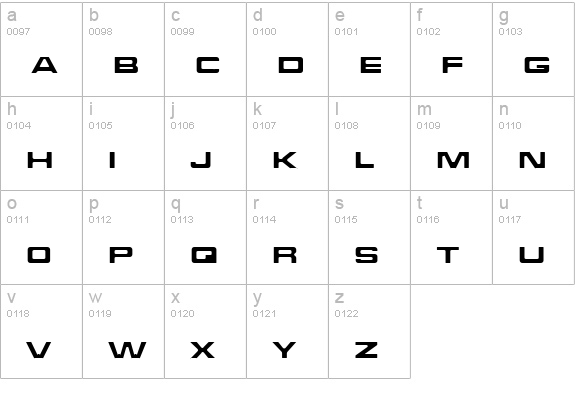
Enterprise Font Details
Enterprise font is a sleek and modern typeface that exudes professionalism and sophistication. With its clean lines and sharp edges, this font is perfect for conveying a sense of authority and credibility in any design project. What makes Enterprise font truly special is that it is available for free download at FontsMarket.com. This means that you can easily access this premium quality font without having to worry about any costs. Whether you are working on a business presentation, a website design, or any other creative project, Enterprise font will help you achieve a polished and professional look. Don't miss out on this fantastic opportunity to enhance your designs with the elegant and versatile Enterprise font. Download it for free today at FontsMarket.com and take your projects to the next level.